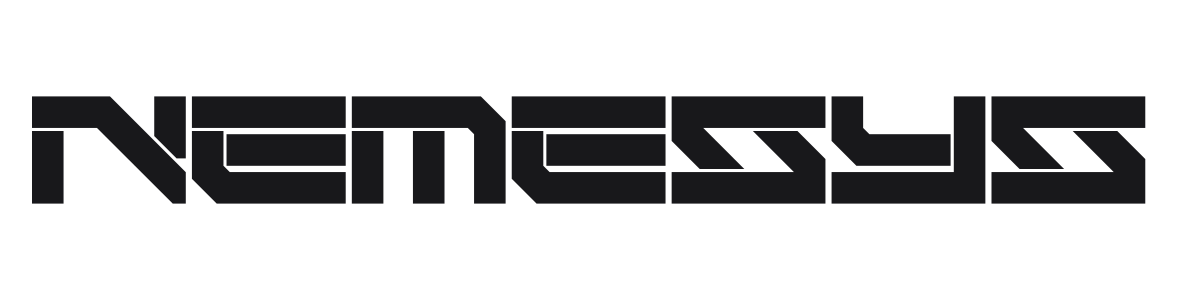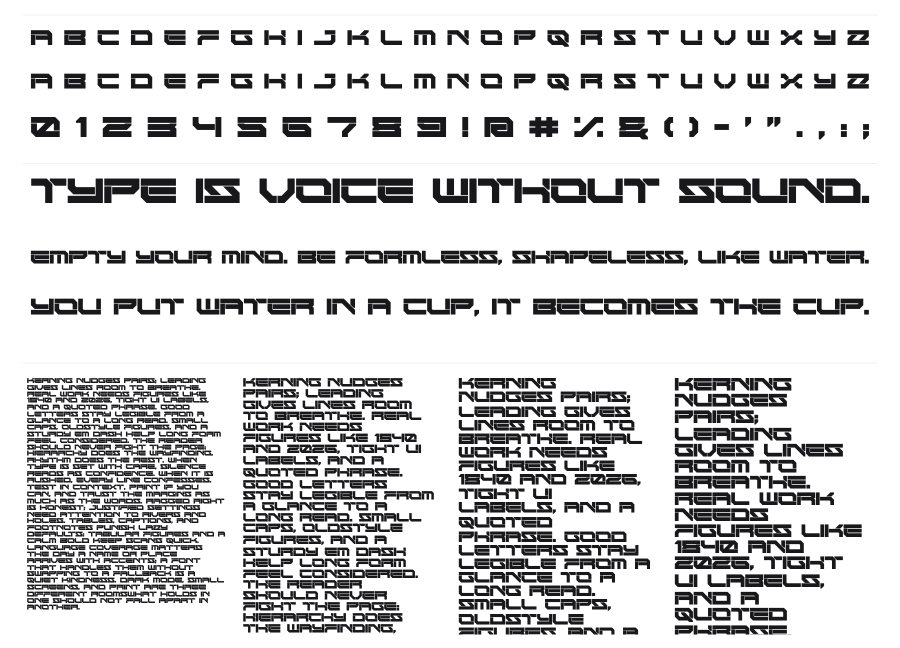
Nemesys
Nemesys is a bold geometric techno display face built around square construction and angular slice details cut through the strokes. The modular, circuit-board quality gives it an aggressive, mechanical presence that reads instantly at large sizes. It fits naturally in gaming, sci-fi, and industrial branding contexts where hard edges signal authority.